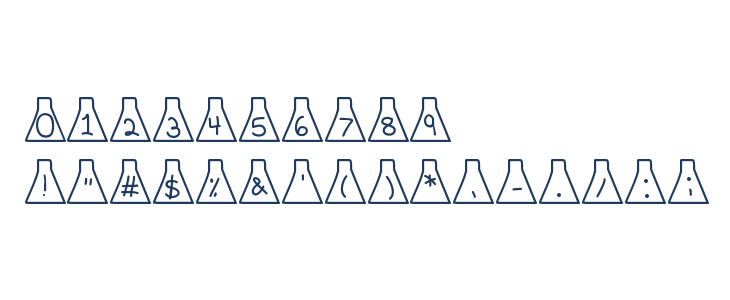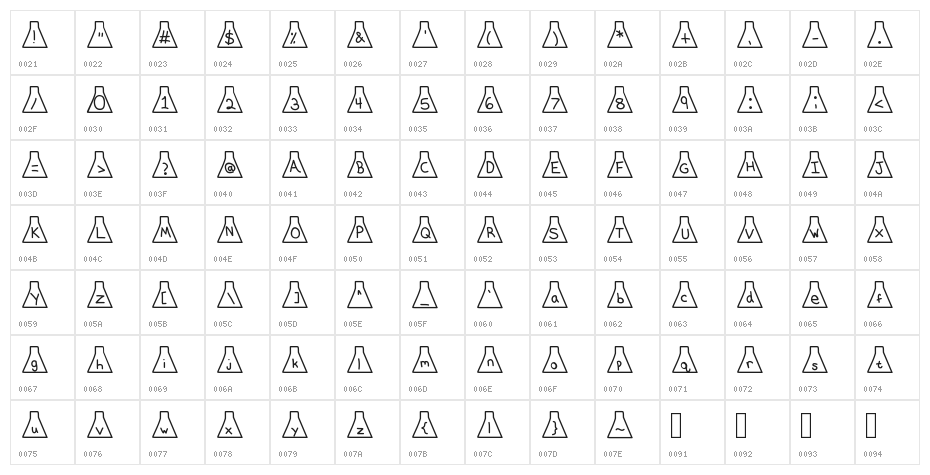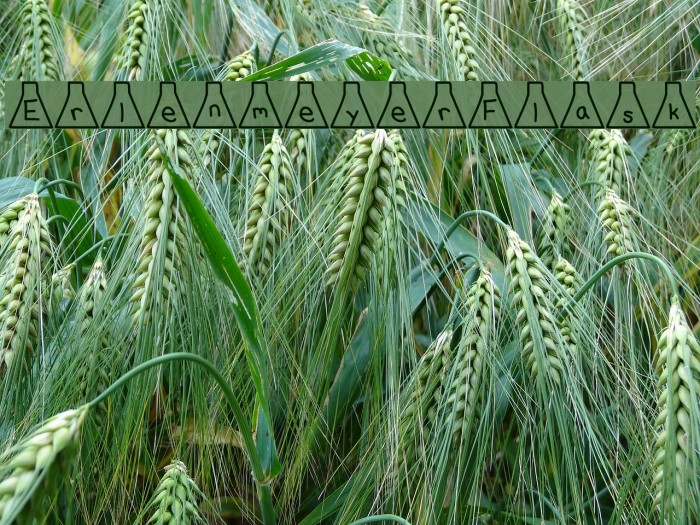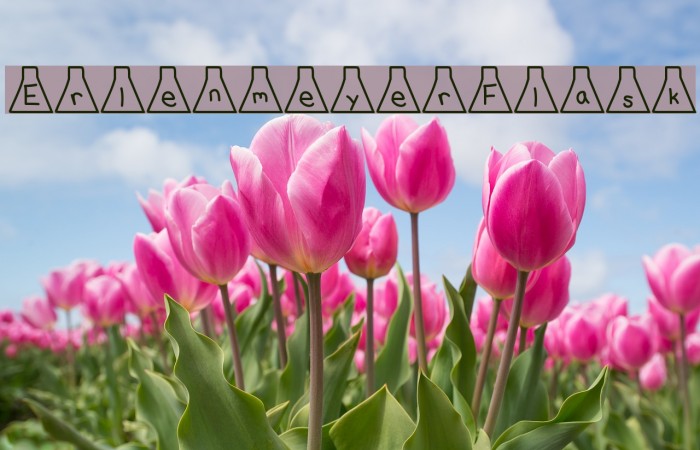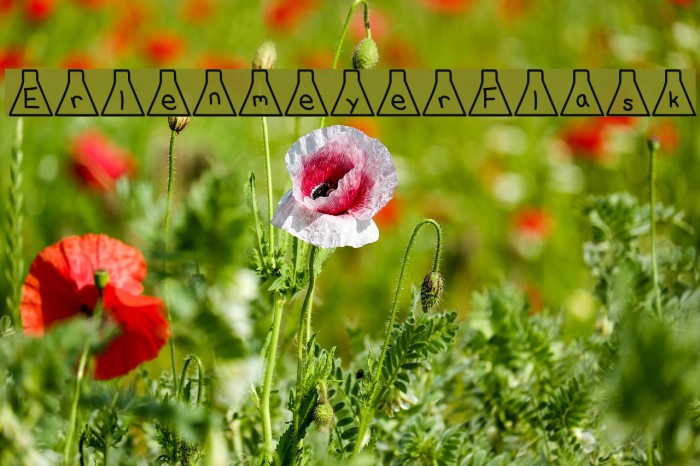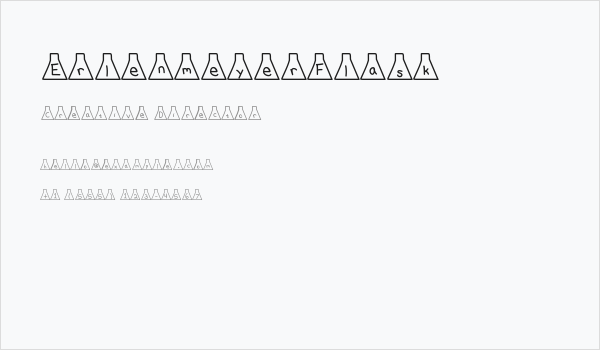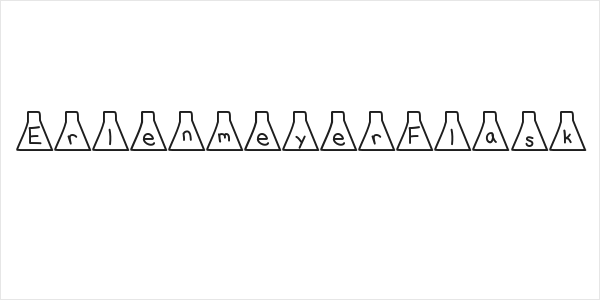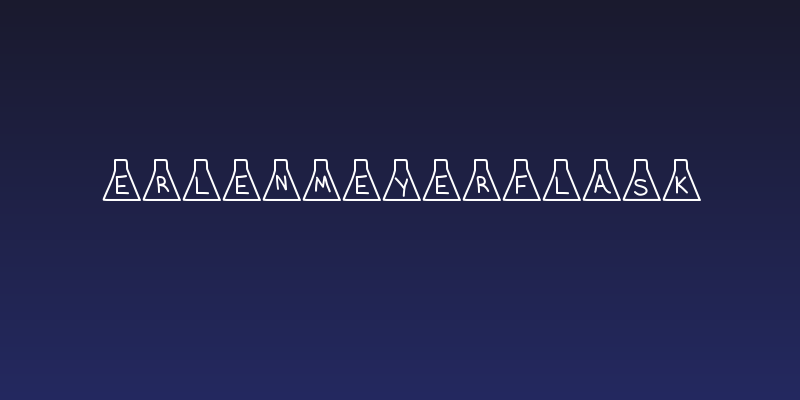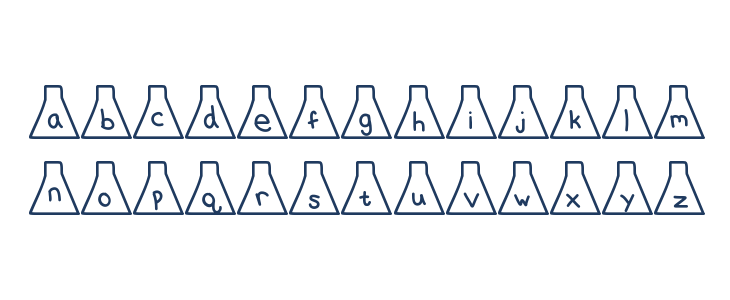
ErlenmeyerFlask Font
ErlenmeyerFlask Description
This font features characters enclosed within the shape of an Erlenmeyer flask, giving it a unique and playful scientific theme. Each letter and number is centered within the flask outline, maintaining a consistent and uniform appearance. The lines are clean and bold, ensuring readability while adding a decorative touch. The font is ideal for projects that require a quirky, science-related aesthetic, such as educational materials, themed event posters, or creative branding for science-related products.
| Proposed Projects | Ideal for educational materials, science-themed event posters, creative branding for science-related products, and playful graphic designs. |